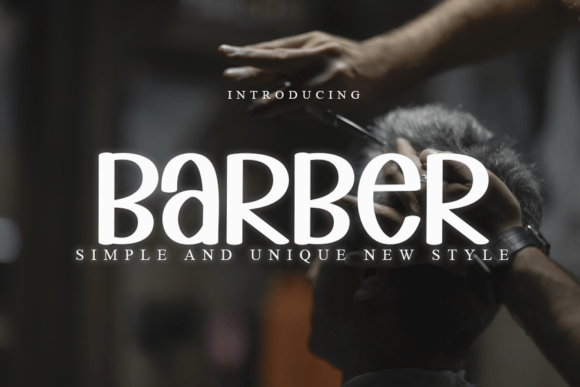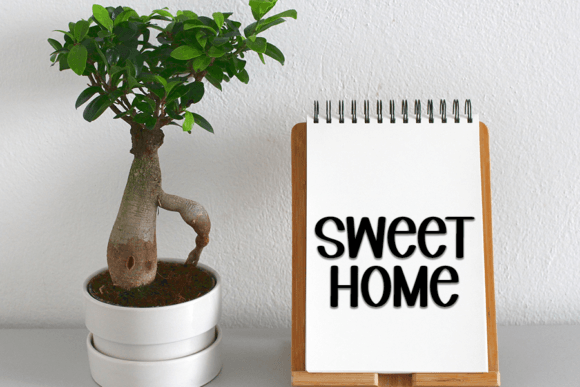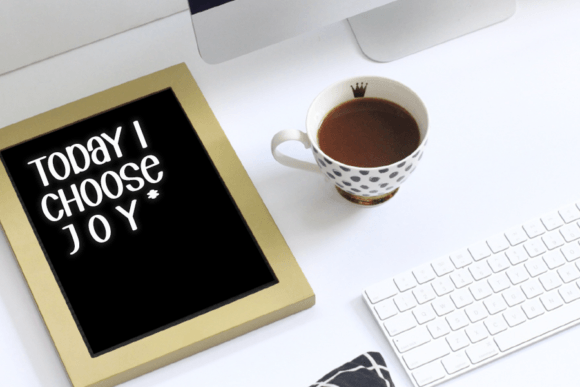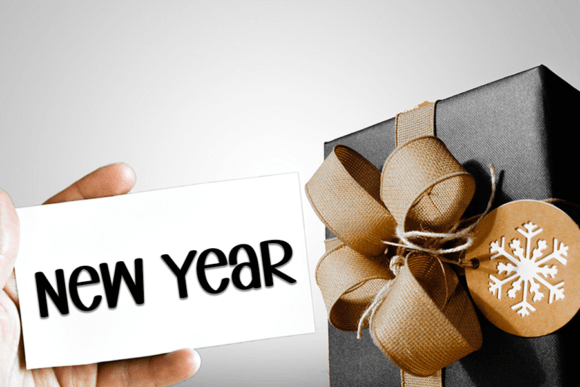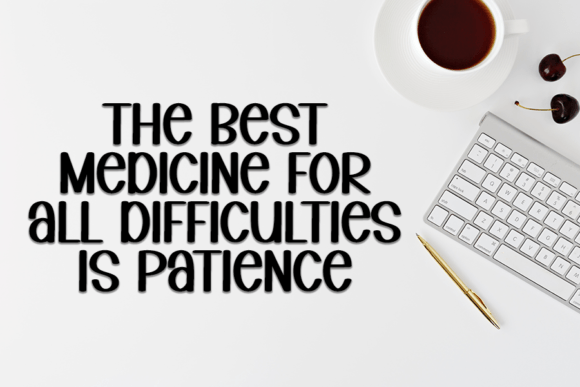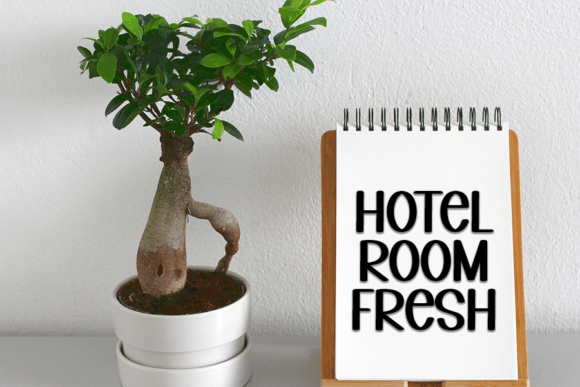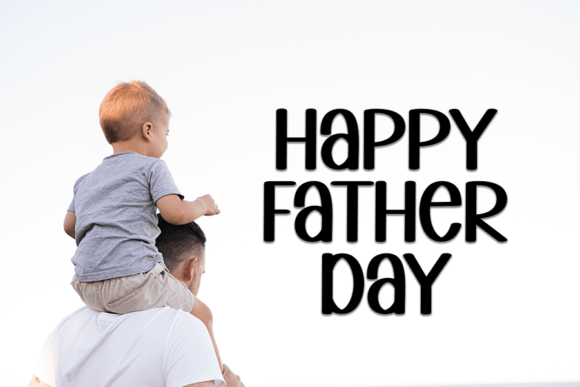
Unleashing Creativity with the Barber Font
Remember the rush of excitement you felt when you stumbled upon that perfect font for your next creative project? Maybe it was a wedding invitation, a birthday card, or a social media post that needed that extra oomph. For many designers, finding the right font can be the difference between a good design and a great one.
Enter the Barber Font, a cool and modern handwritten font that’s perfect for a wide range of creative projects. Whether you’re crafting, designing digitally, or creating presentations, this font has the potential to become your new go-to. With its versatility and stylish charm, the Barber Font is an invaluable tool for designers looking to add a personal touch to their work.
Key Features of Barber Font
- Size and Resolution: The font has a large x-height, making it suitable for use in body text. It is available in 12 different font sizes, ranging from 8pt to 48pt, and supports resolutions up to 300 DPI.
- Unique Characteristics: Barber Font features a unique blend of modern and vintage elements, with a distinctive serif and sans-serif hybrid design. The font has a high level of legibility and is well-suited for use in both print and digital media.
- Font Weight and Style: Barber Font is available in 6 different font weights, ranging from Light to Extra Bold, and 2 different font styles, including Regular and Italic.
- Font Metrics: Barber Font has a x-height of 0.5, an ascender height of 0.8, and a descender height of 0.4, making it well-suited for use in body text and other applications where readability is important.
Barber Font Review
At first glance, the Barber Font caught my eye with its modern, stylish aesthetic. ✨ I appreciate how it combines clean lines with subtle flair to create a distinctive look. The font’s personality is effortlessly cool, which makes it perfect for fashion, beauty, and lifestyle brands.
Here are some of the Barber Font‘s strengths:
- Unique blend of modern and vintage elements
- Well-suited for high-end brands and fashion-forward projects
- Looks great in both display and body copy contexts
- May not be the best choice for corporate or traditional brands
- Some characters can appear slightly inconsistent in certain font sizes
- Lack of a comprehensive font family (no bold or italic variants)
Overall, the Barber Font is a great choice for designers who want to add a touch of sophistication and style to their projects. While it may not be perfect, its unique personality and versatility make it a worthwhile addition to any design toolkit.
Tips for Getting the Most Out of Barber Font
Use the Barber Font to create a unique and eye-catching visual identity for your brand or design. Experiment with different font sizes, colors, and styles to find the perfect combination. Consider pairing the Barber Font with other fonts or design elements to create a cohesive look.
The Barber Font is ideal for use in creative industries such as graphic design, advertising, and publishing. It’s also great for use in branding and marketing materials, such as logos, business cards, and brochures.
Alternatives to Barber Font
Great Vibes is a modern, elegant script font perfect for creating a sophisticated and refined look. It’s ideal for use in headings, titles, and short paragraphs where a touch of sophistication is needed. In comparison to Barber Font, Great Vibes has a more refined and polished appearance, making it suitable for high-end branding and design projects.
Alex Brush is a handwritten script font that exudes a sense of elegance and sophistication. It’s perfect for use in titles, headings, and short paragraphs where a touch of personality is needed. Compared to Barber Font, Alex Brush has a more refined and delicate appearance, making it suitable for projects that require a more subtle and understated look.